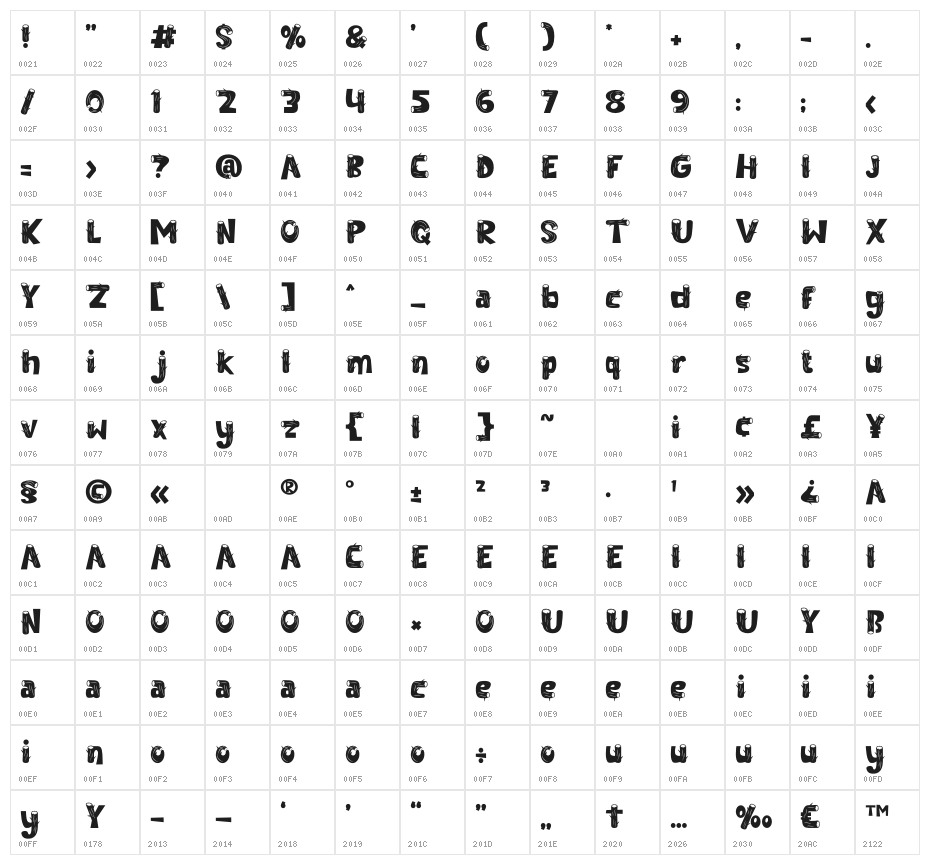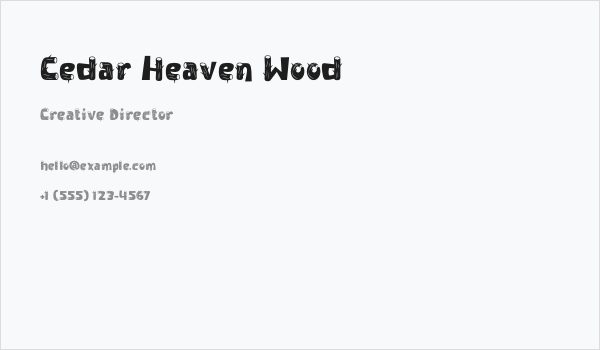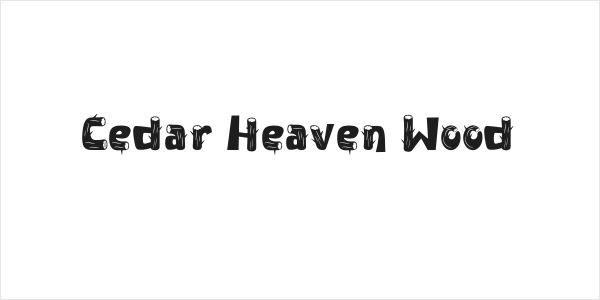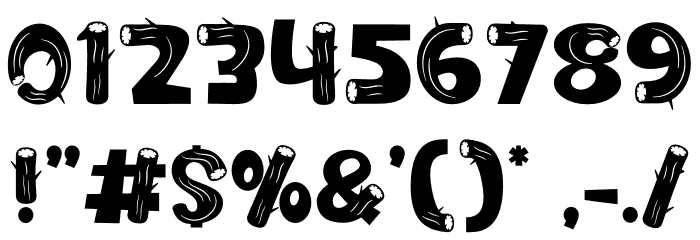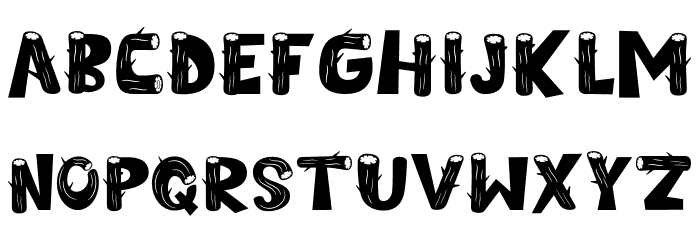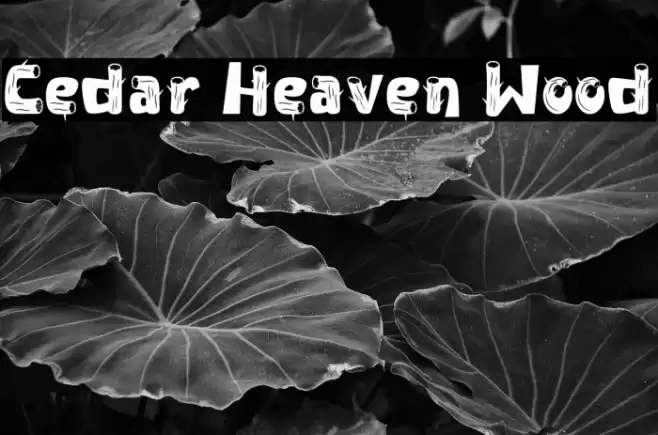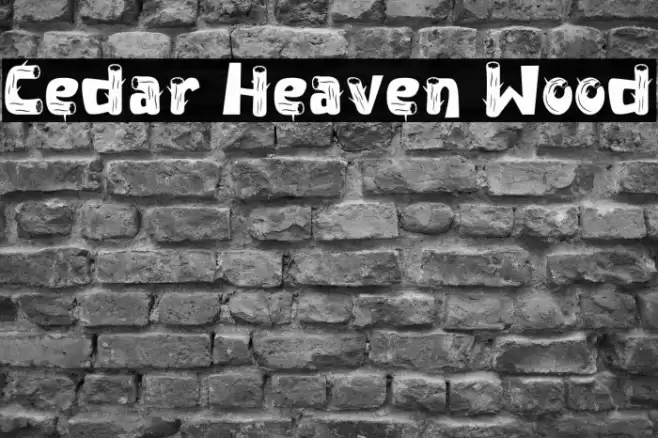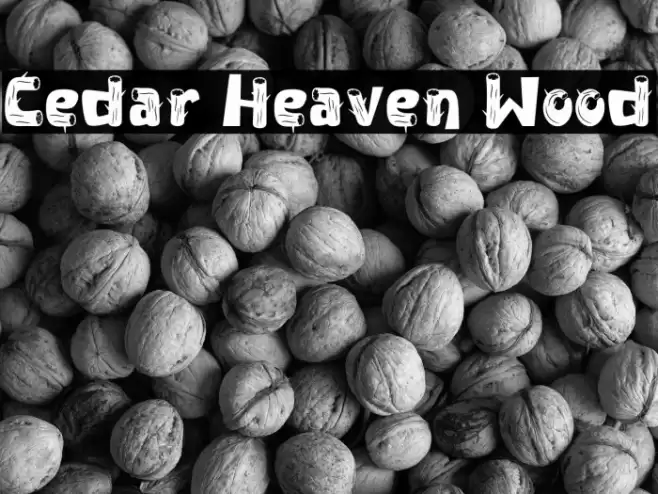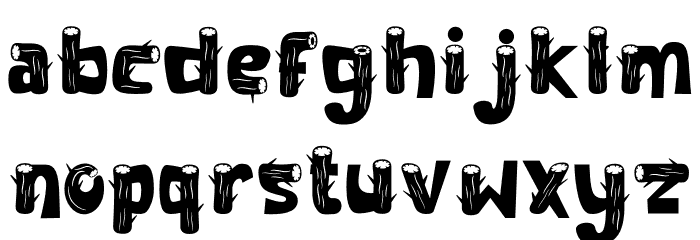
Cedar Heaven Wood Font
Cedar Heaven Wood Description
This font features a unique, decorative style that mimics the texture and appearance of wood grain, giving each character a rustic and natural feel. The letters are bold and have a playful, hand-drawn quality, with intricate details that resemble the knots and lines found in wood. The uppercase and lowercase letters maintain a consistent style, with rounded edges and a slightly irregular form that adds to the organic aesthetic. Numbers and special characters follow the same design principles, ensuring a cohesive look across all elements.
| Proposed Projects | Ideal for nature-themed designs, eco-friendly branding, rustic wedding invitations, and creative posters. |